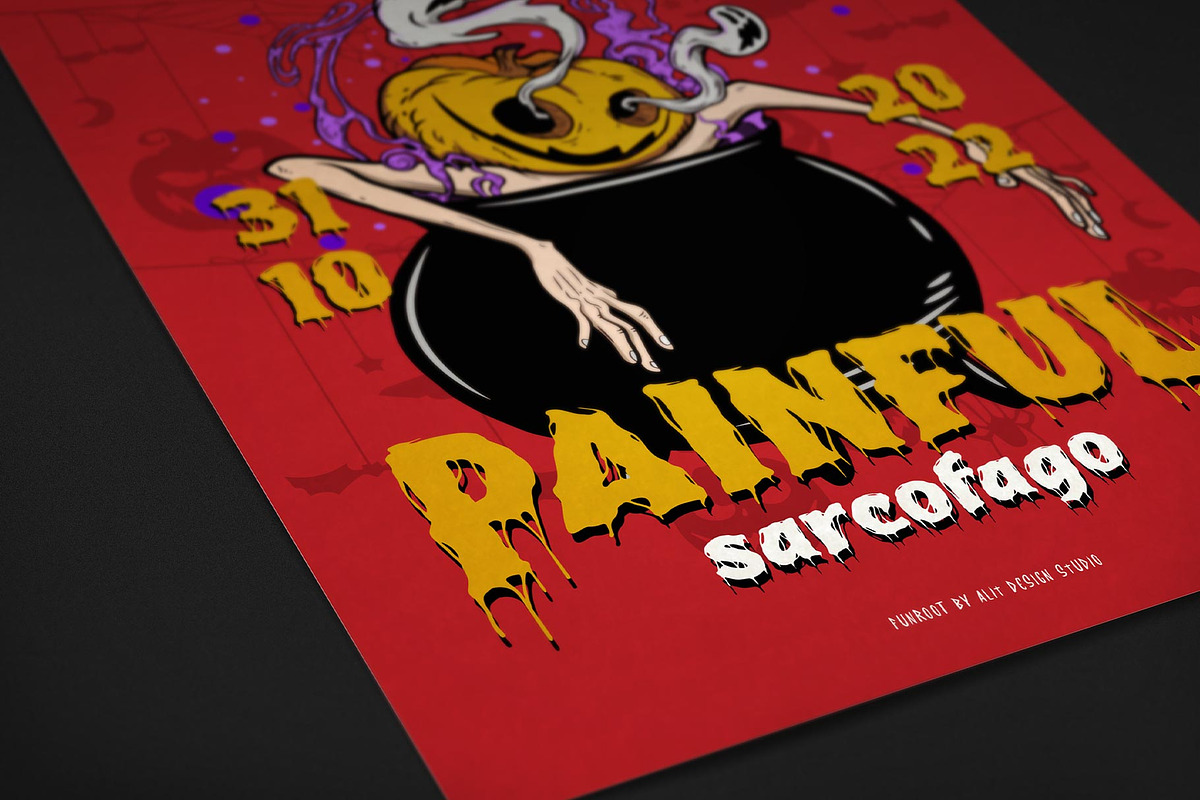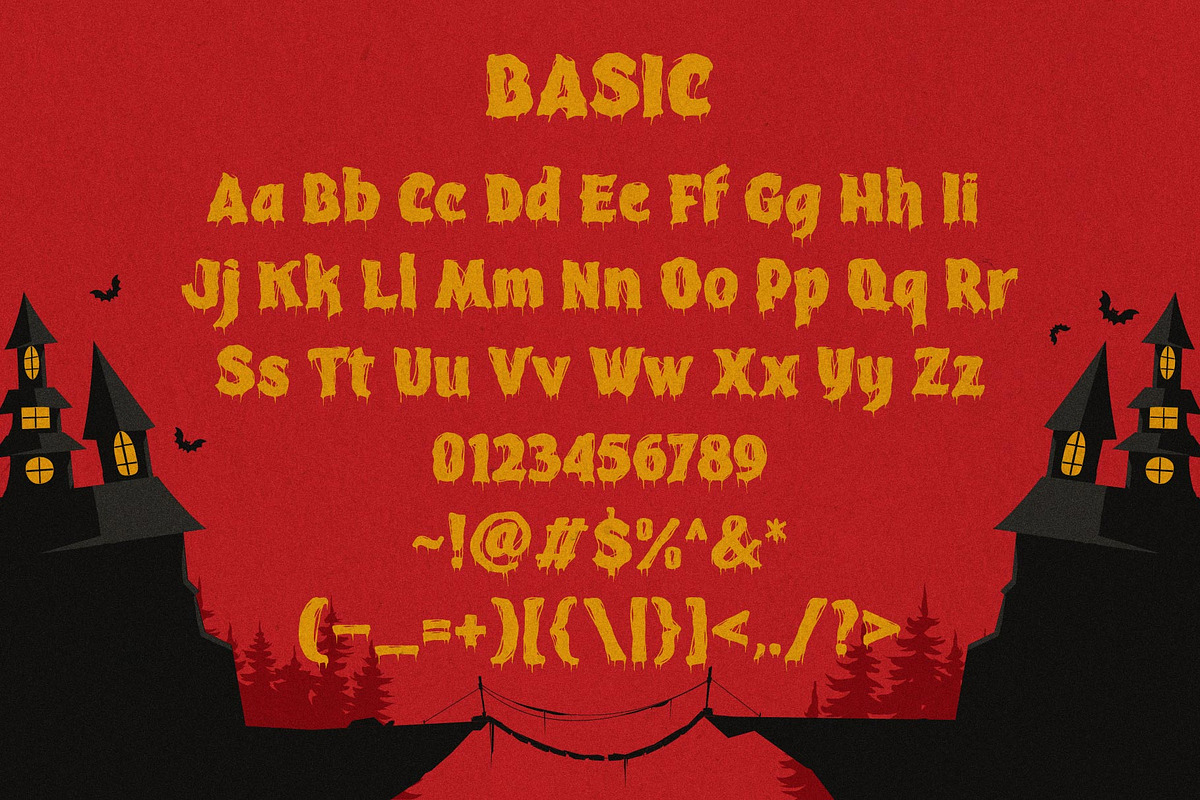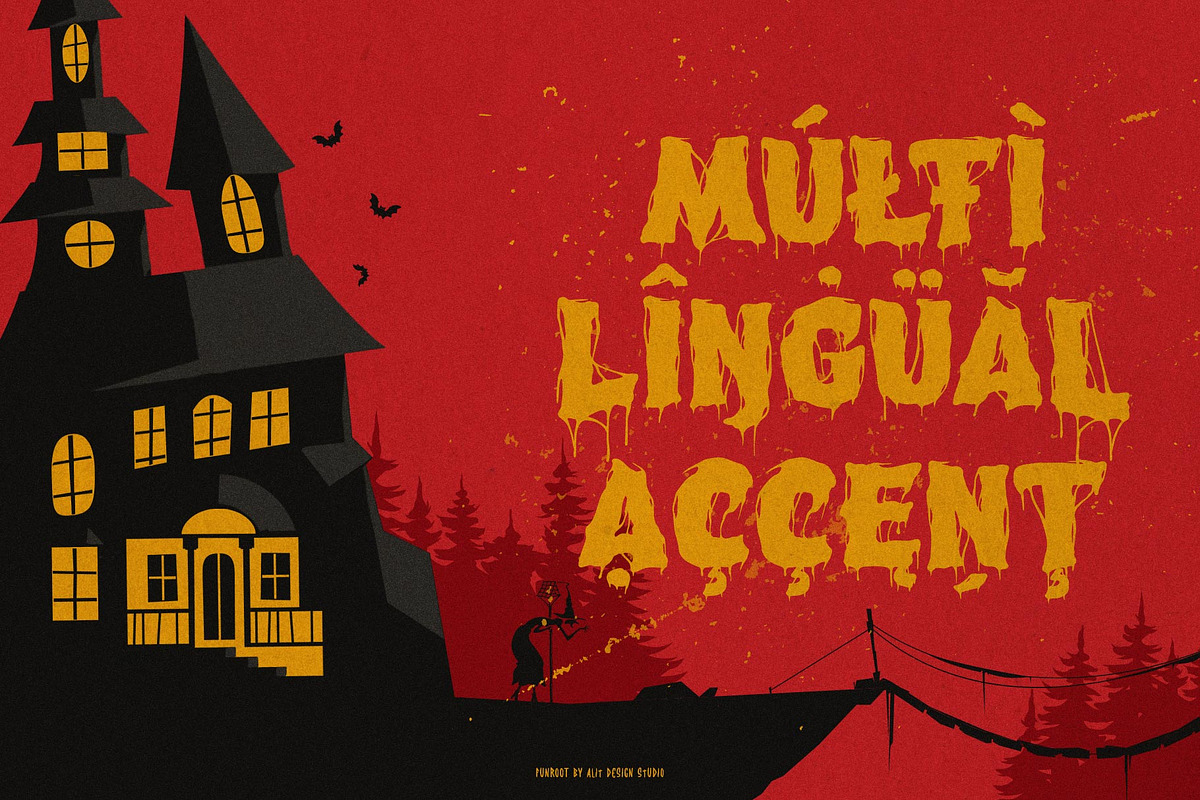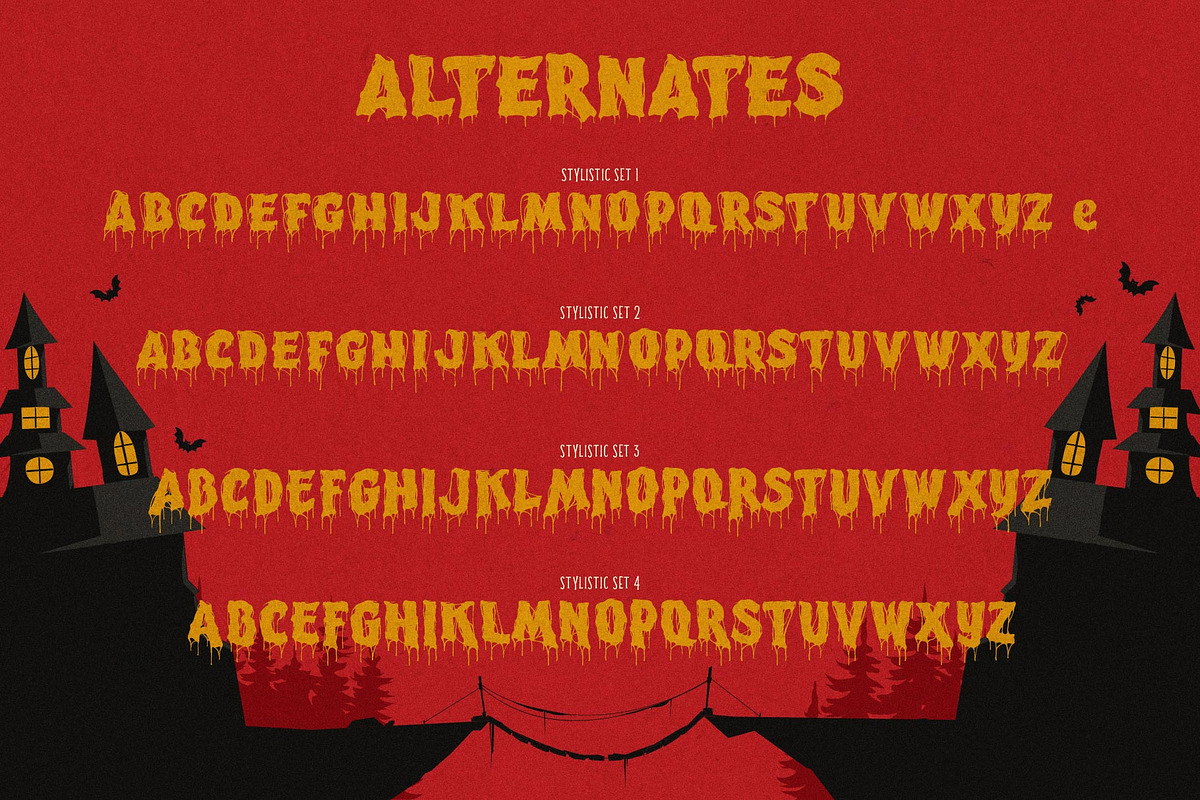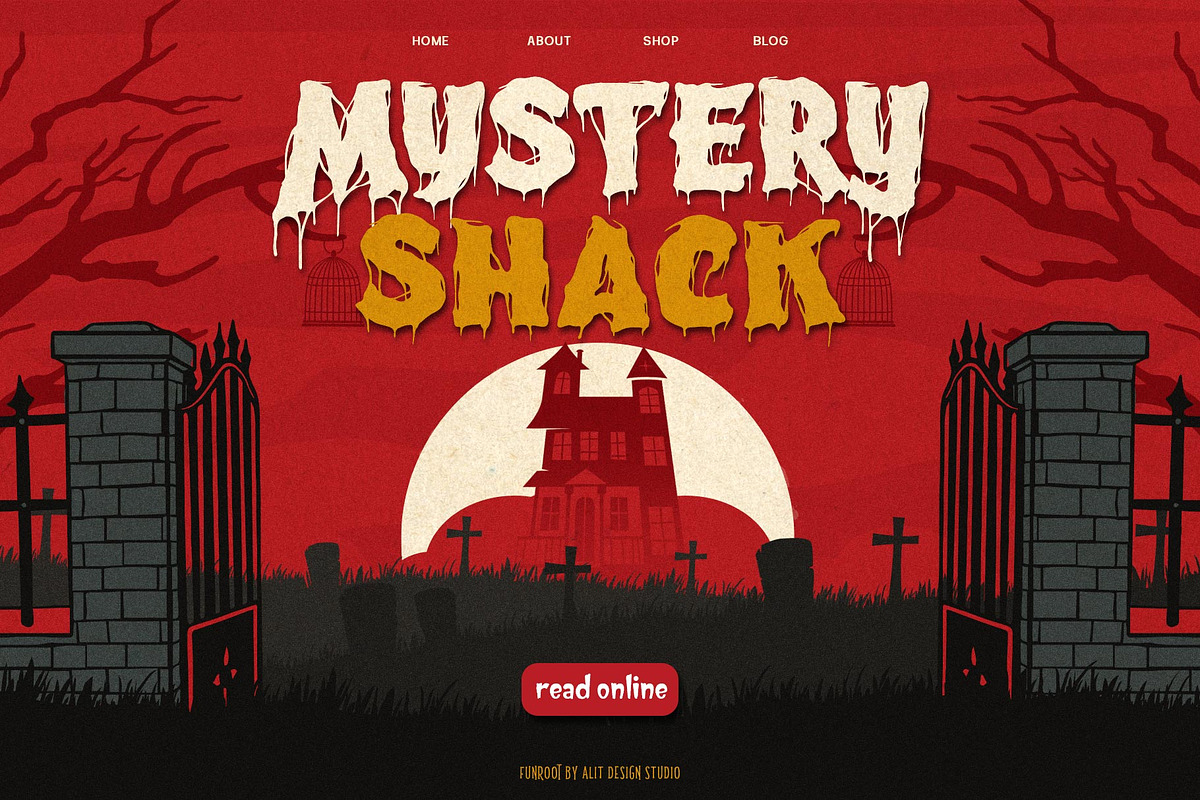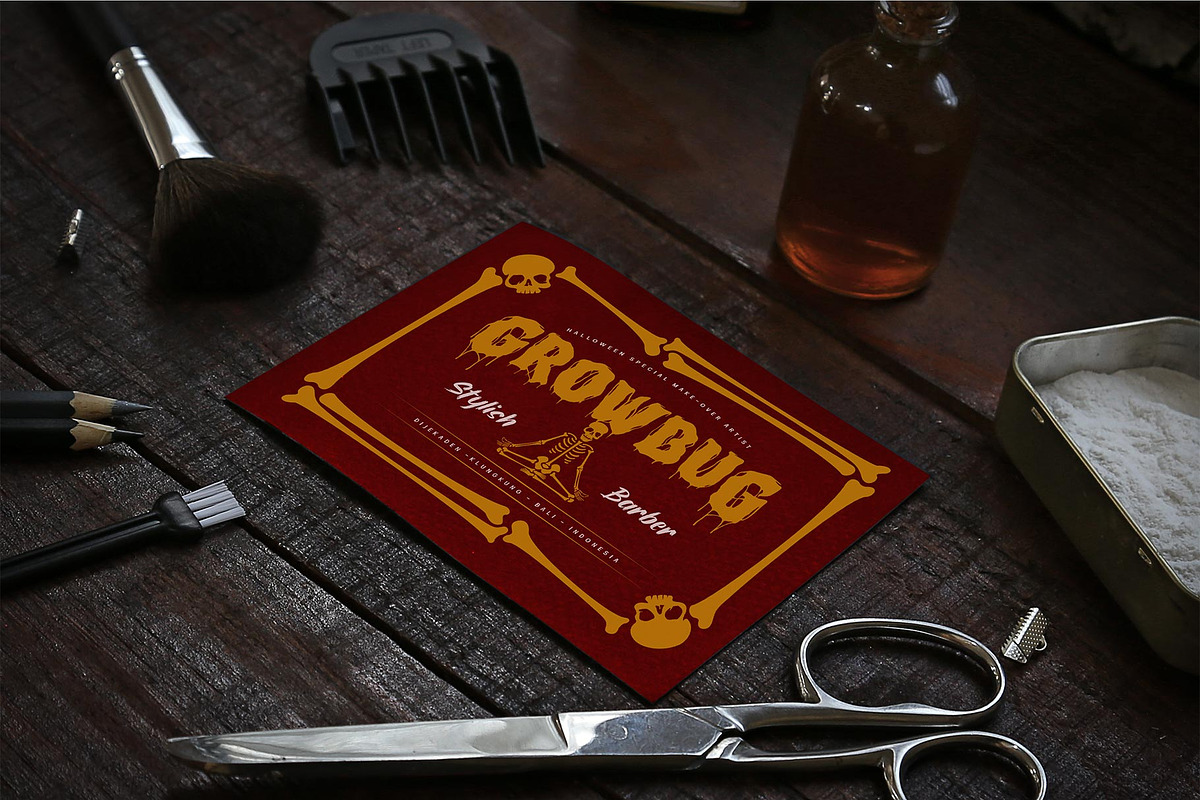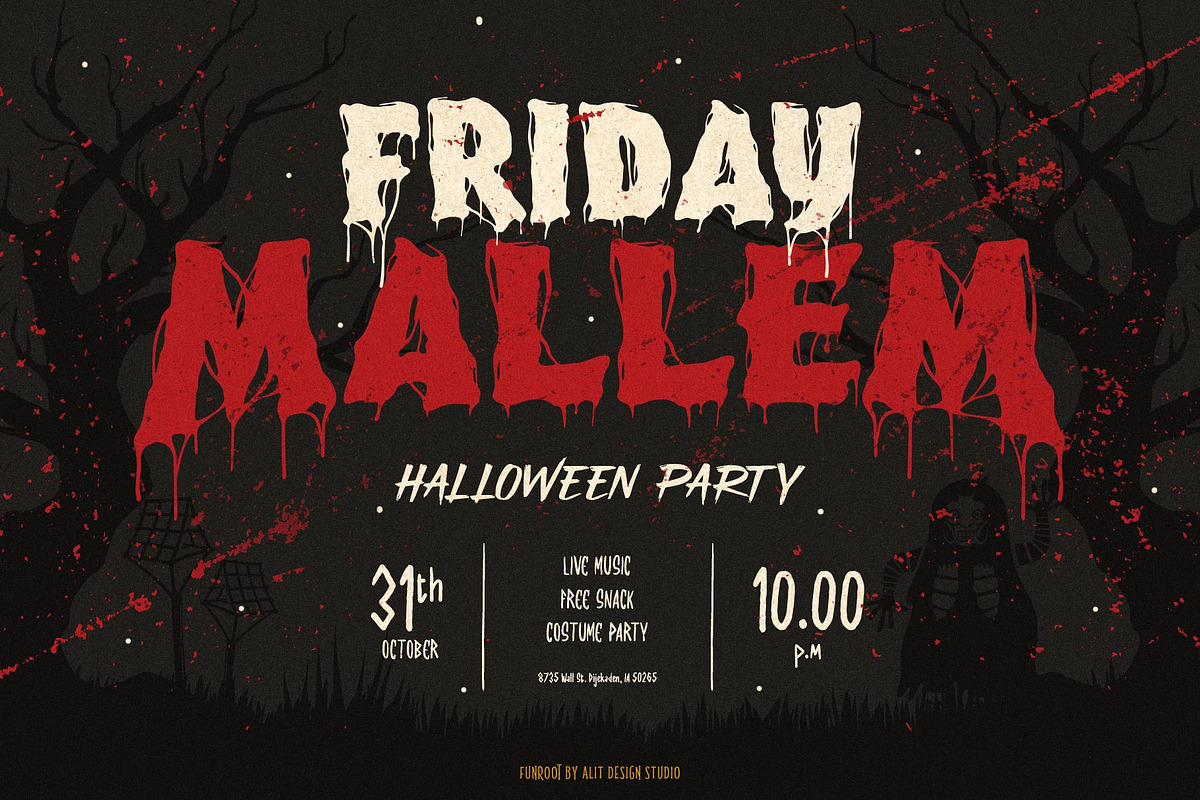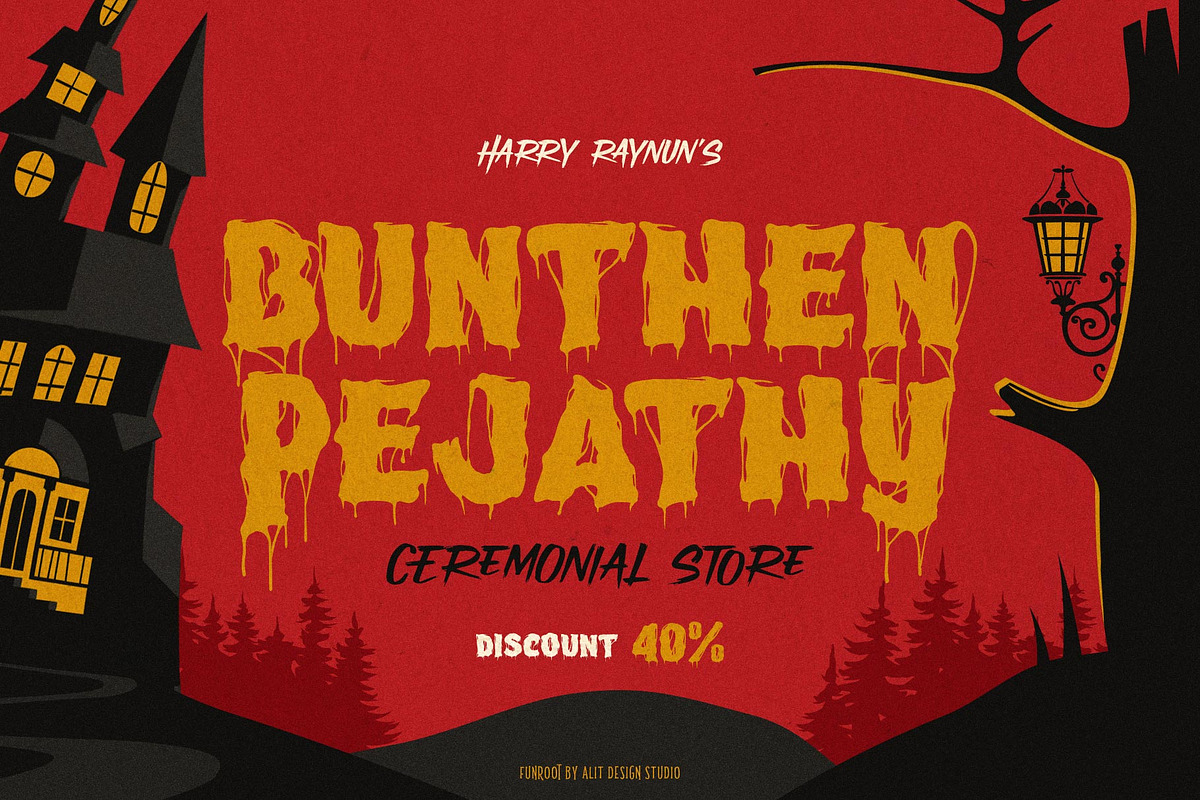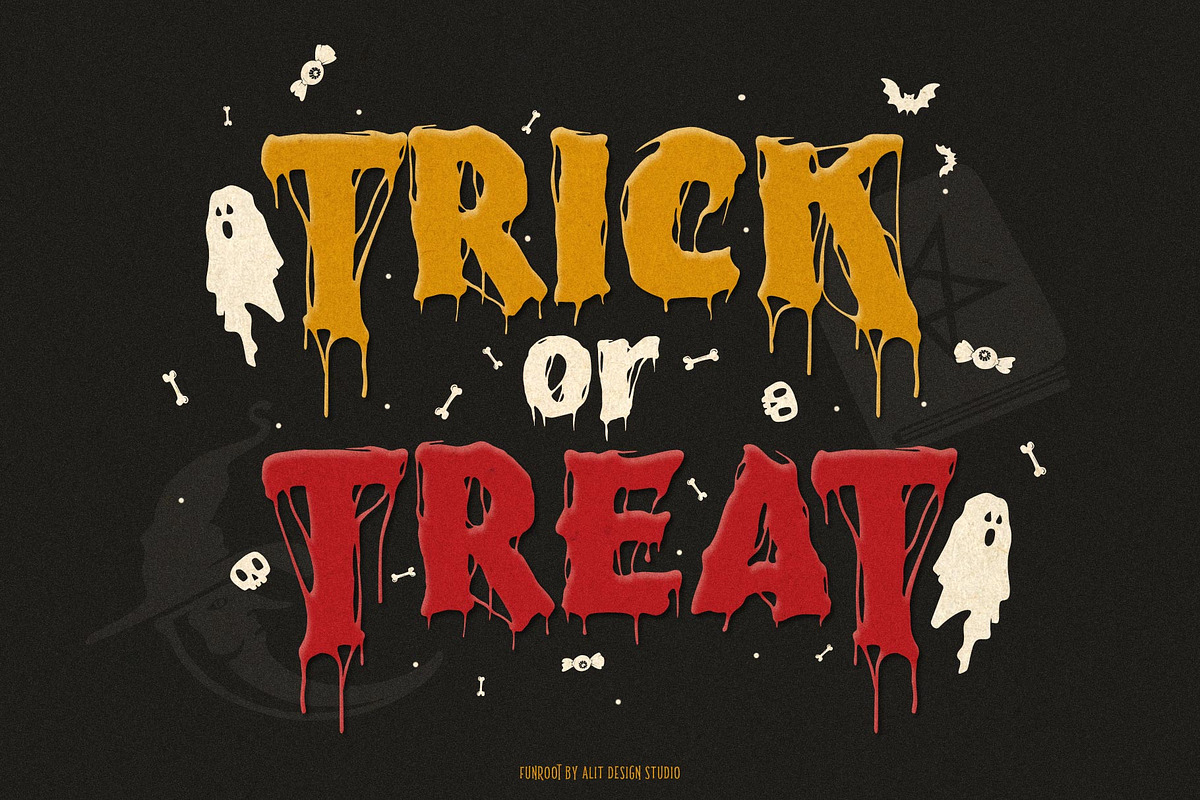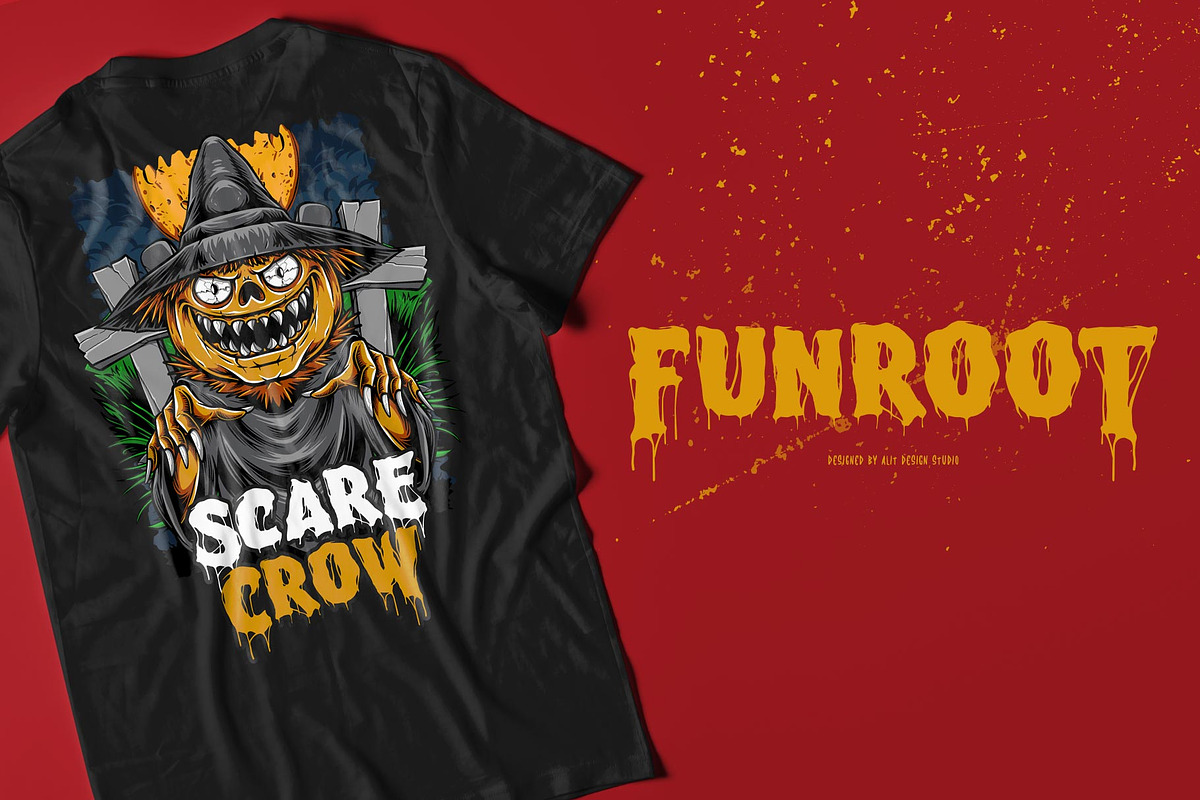
Funroot Typeface
Presenting the 🎃 The FUNROOT Halloween Typeface 🦇 by alitdesign.
The FUNROOT Halloween Typeface is designed for the needs of Halloween themed design concepts and events in October and November. FUNROOT Halloween Typeface has a horror character with a character shaped like a haunted tree root, making the Halloween horror-themed design concept even better and unique.
The FUNROOT Halloween Typeface also gets a bonus character of 150 Halloween-themed illustrations that make creating designs even easier. Simply by downloading The FUNROOT Halloween Typeface, creating a Halloween themed design is very quick and easy.
The FUNROOT Halloween Typeface is perfect for magazine cover designs, brochures, flyers. Instagram ads, Canva Design and so on with halloween and dark concepts. besides that this font is very easy to use both in design and non-design programs because everything changes and glyphs are supported by Unicode (PUA).
The FUNROOT Halloween Typeface contains 561 + 150 bonus glyphs with many unique and interesting alternative options.
Language Support : Latin, Basic, Western European, Central European, South European,Vietnamese.